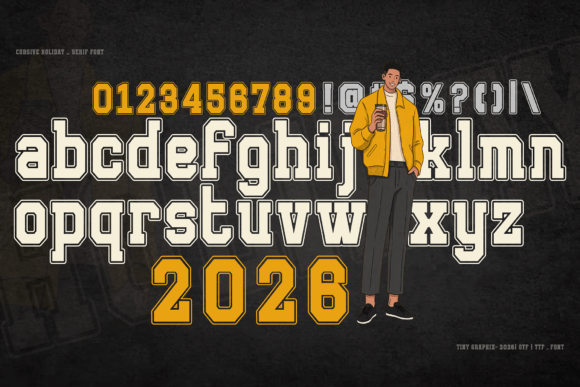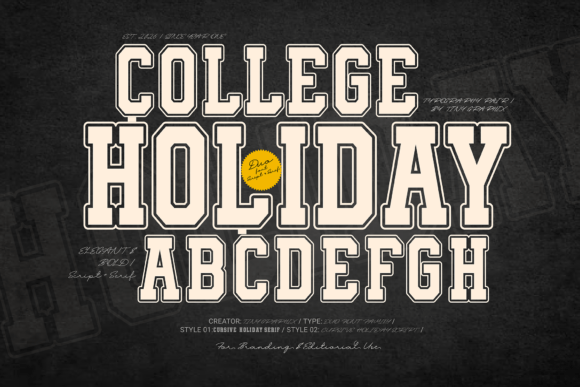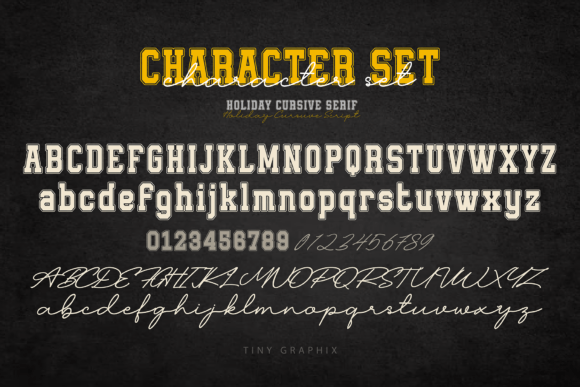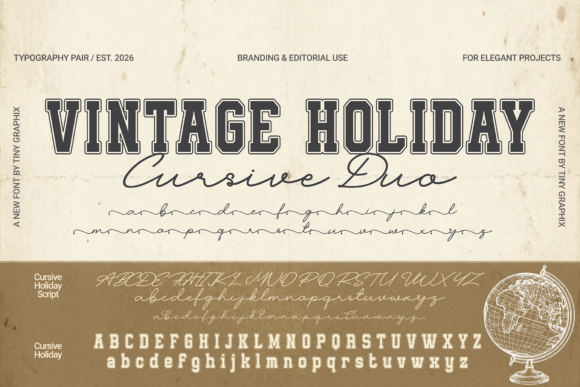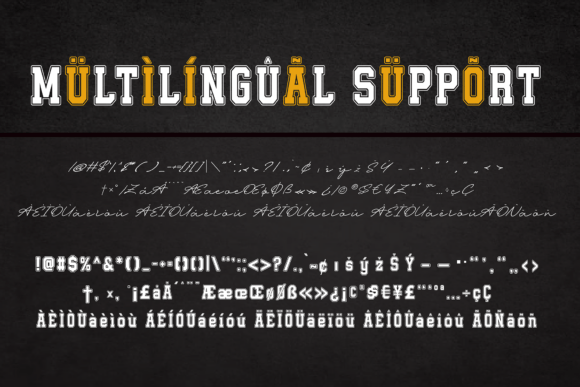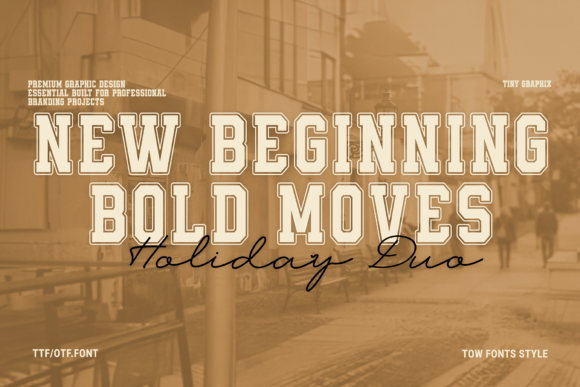
Cursive Holiday Font: Elevate Your Designs with a Versatile and Timeless Typeface
When it comes to creating high-end branding and modern editorial projects, the right font pairing can make all the difference. Introducing Cursive Holiday Duo, a thoughtfully curated collection of two complementary fonts that will take your designs to the next level. This dynamic duo features a robust, varsity-inspired College Serif and a fluid, organic Cursive Script, offering a balanced visual hierarchy for any design layout.
A Classic yet Contemporary Aesthetic
Characterized by its bold structure and clean lines, Cursive Holiday Duo evokes a classic yet contemporary athletic aesthetic that is perfect for impactful headlines, fashion-related concepts, and vintage magazine layouts. The College Serif font boasts a sturdy, varsity-inspired design that exudes confidence and sophistication, while the Cursive Script font adds a touch of elegance and refinement with its fluid, organic strokes.
Ideal for Luxury Branding and Editorial Projects
Cursive Holiday Duo is perfectly suited for luxury branding, wedding stationery, and sophisticated social media content. The contrast between the sharp serifs of the College Serif font and the soft curves of the Cursive Script font adds a layer of exclusivity to logotypes, apparel design, and identity systems. Whether you’re looking to create a high-end brand identity, a stylish wedding invitation, or a fashion editorial spread, this versatile font pairing has got you covered.
Key Features of Cursive Holiday Duo
- Versatile font pairing: College Serif and Cursive Script fonts work together in harmony to create a balanced visual hierarchy.
- Bold structure and clean lines: Evokes a classic yet contemporary athletic aesthetic.
- Impactful headlines: Perfect for creating attention-grabbing titles and headings.
- Fashion-related concepts: Ideal for fashion editorials, apparel design, and identity systems.
- Vintage magazine layouts: Adds a touch of nostalgia and sophistication to editorial projects.
- Luxury branding: Perfect for high-end brand identities, wedding stationery, and sophisticated social media content.
Why Choose Cursive Holiday Duo?
In a world where typography plays a crucial role in design, Cursive Holiday Duo offers a unique and timeless solution for designers and crafters. This font pairing provides the essential typographic tools to create high-end designs that exude exclusivity and sophistication. With its versatility, elegance, and classic yet contemporary aesthetic, Cursive Holiday Duo is the perfect choice for:
- Designers: Looking for a versatile and high-end font pairing for branding, editorial, and advertising projects.
- Crafters: Seeking a stylish and elegant font for handmade products, such as wedding stationery, party invitations, and DIY crafts.
- Brands: Aiming to create a strong and sophisticated brand identity that stands out in a crowded market.
In conclusion, Cursive Holiday Duo is a game-changing font pairing that will elevate your designs to new heights. With its versatile and timeless aesthetic, this dynamic duo is perfect for high-end branding, modern editorial projects, and sophisticated social media content. Whether you’re a designer, crafter, or brand owner, Cursive Holiday Duo provides the essential typographic tools to create impactful and exclusive designs that leave a lasting impression.